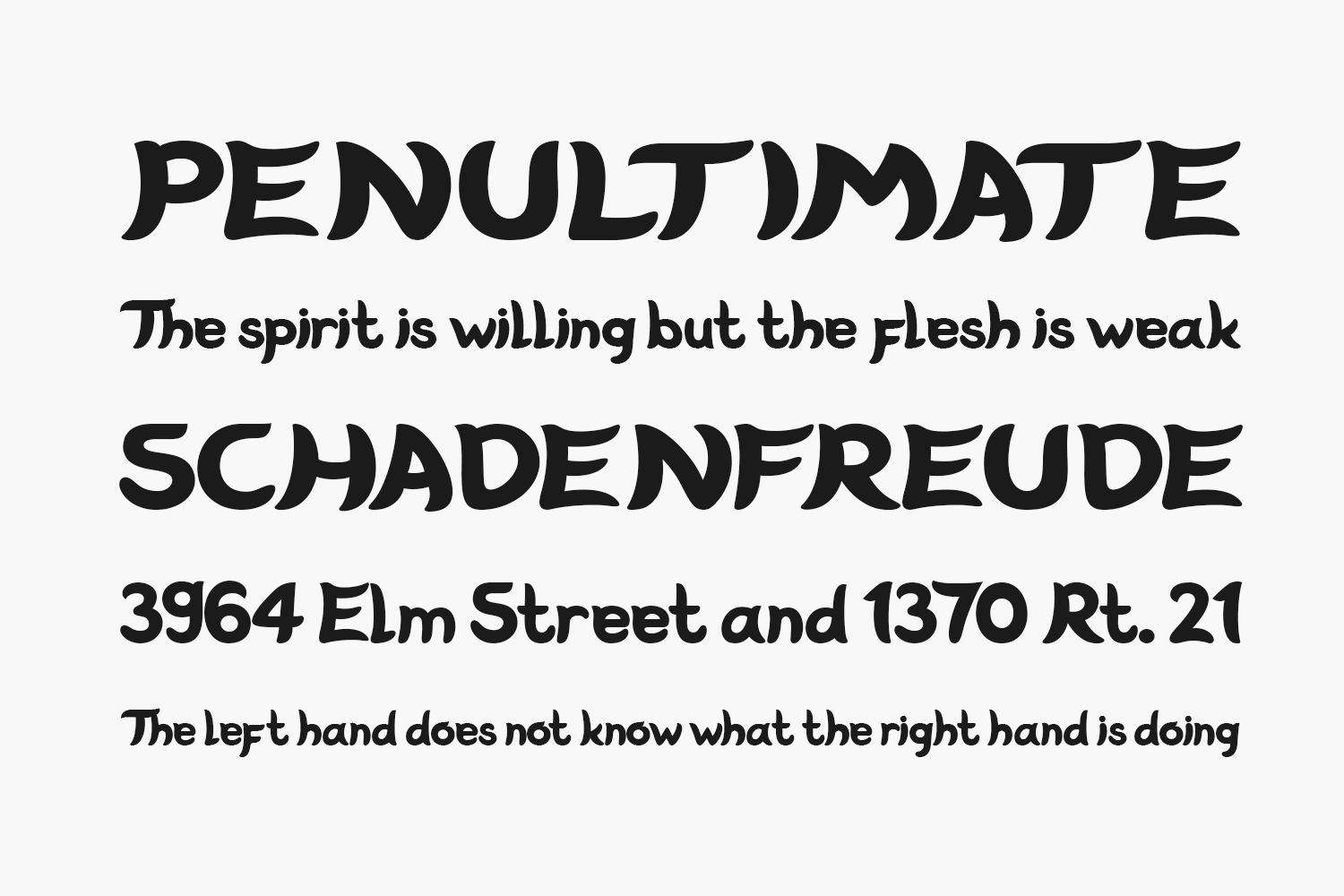
Banabo Free Font is a delightful and vibrant font that draws inspiration from the tropical charm of bananas and beaches. With its playful style, this font is sure to infuse your designs with a unique and eye-catching appeal.
Banabo is the perfect choice for a wide range of applications, including logos, posters, clothing designs, branding projects, and any other design that calls for a fun and lively typeface. Let Banabo inject a dose of excitement and personality into your creations, ensuring they stand out from the crowd with its distinct and lively character. Banabo Free Font is free for personal use only. Please purchase the full version for commercial use.